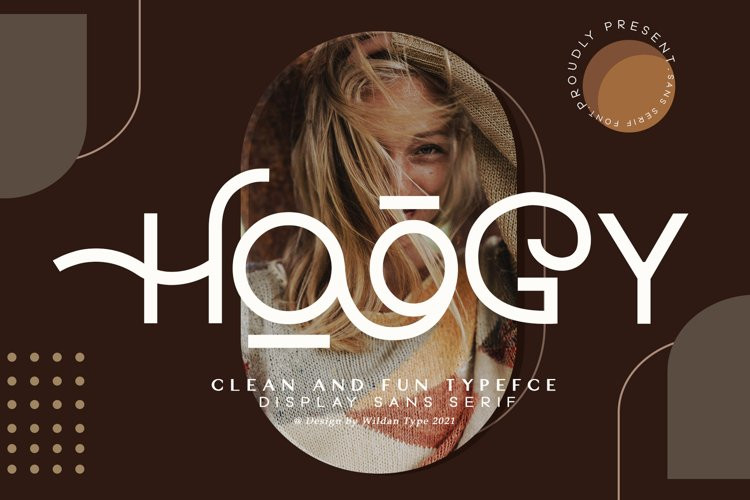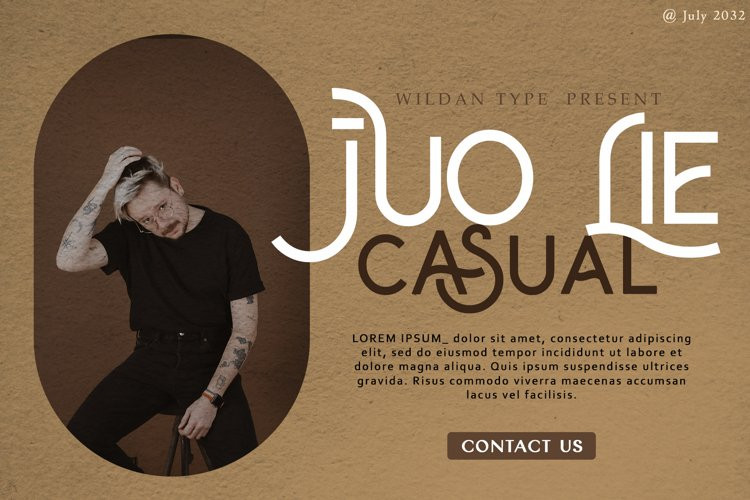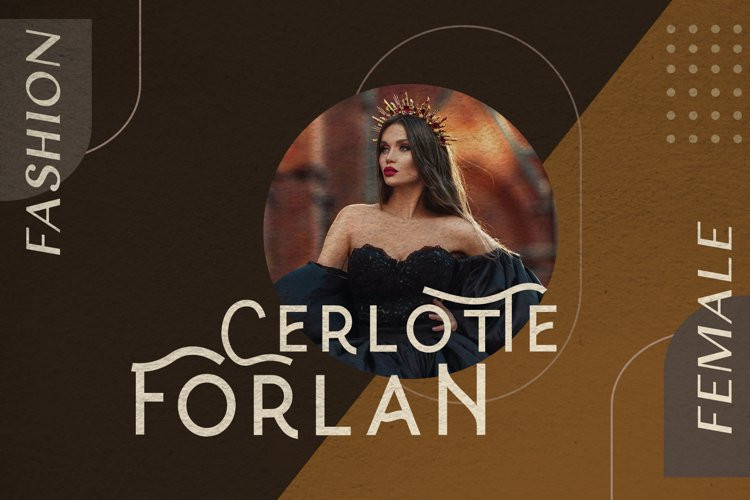
Hoogy Font
Hoogy FontIntroducing new typeface!
Hoogy- A modern sans serif with beautiful swash. It has unic construction for the future style. Hoogy Font look clean, luxury, unic, elegant but still has funny taste. Perfectly used for product presentation, elegant logo design, packaging or invitation cards or heading text.